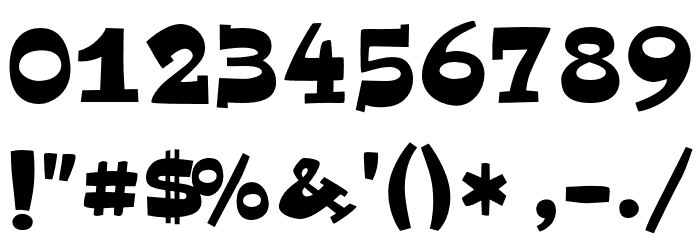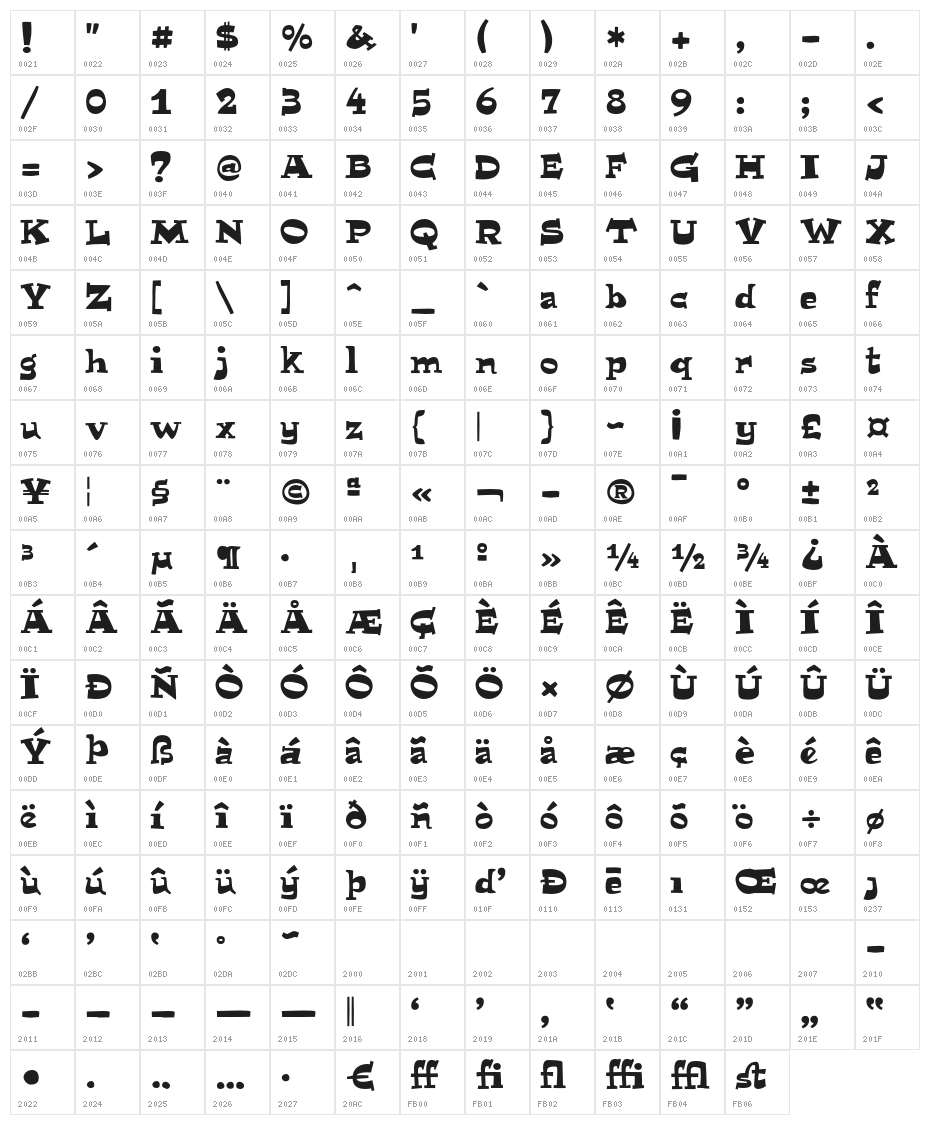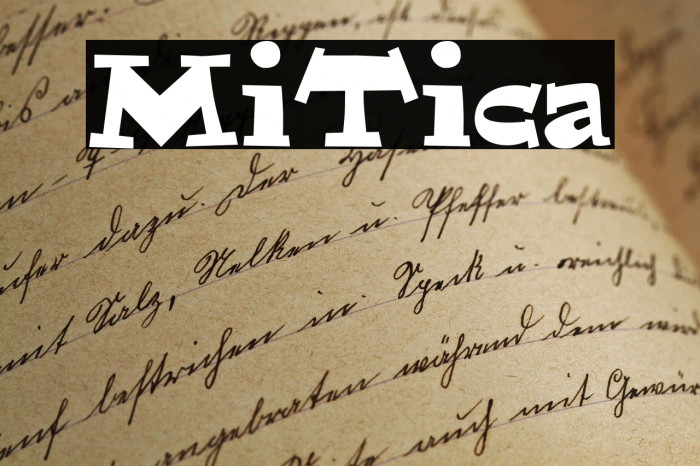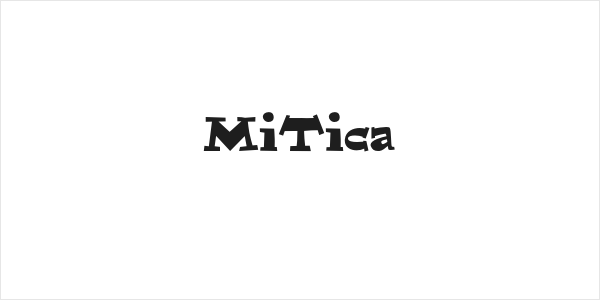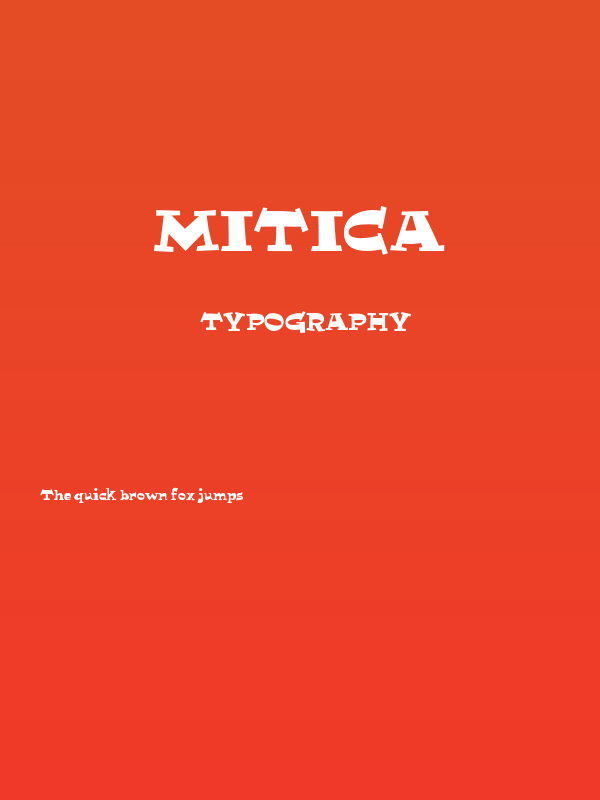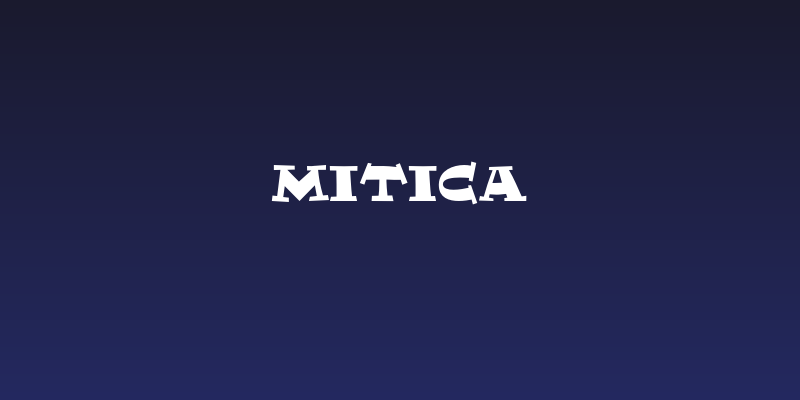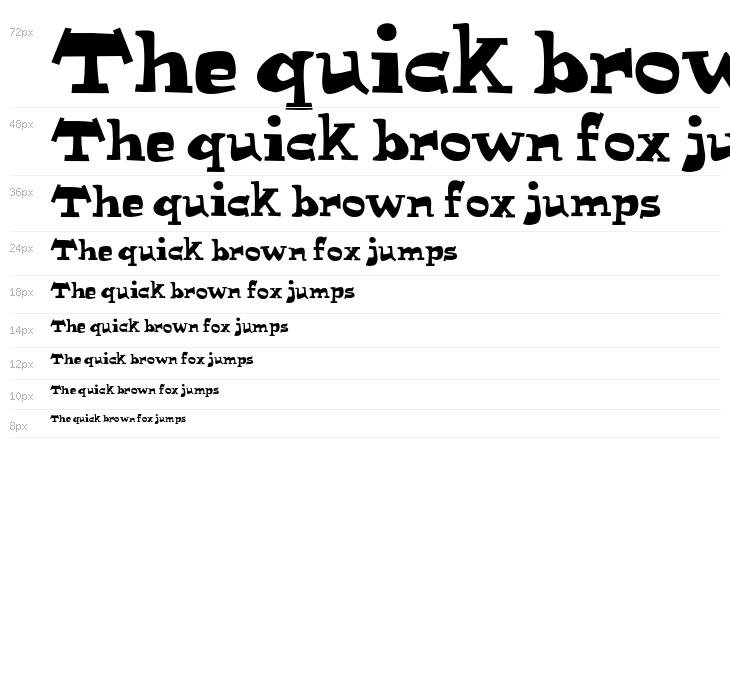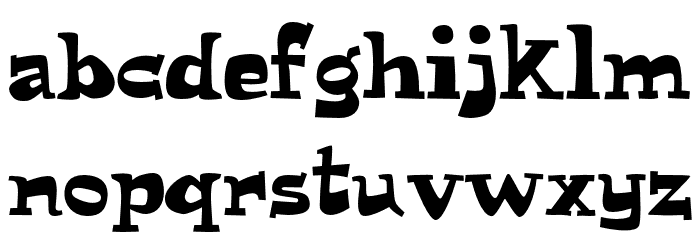
MiTica Font
MiTica Description
This font features a playful and whimsical design, characterized by its bold and irregular letterforms. The strokes are thick and uneven, giving it a hand-drawn, cartoonish appearance. The uppercase letters are particularly distinctive, with exaggerated serifs and varying angles that add to its quirky charm. The lowercase letters maintain this playful style, with rounded edges and a slightly uneven baseline. Numbers and special characters follow the same design principles, ensuring consistency across all glyphs. This font's unique style makes it stand out, offering a fun and informal aesthetic.
| Proposed Projects | Ideal for children's books, comic strips, playful branding, and creative posters. |